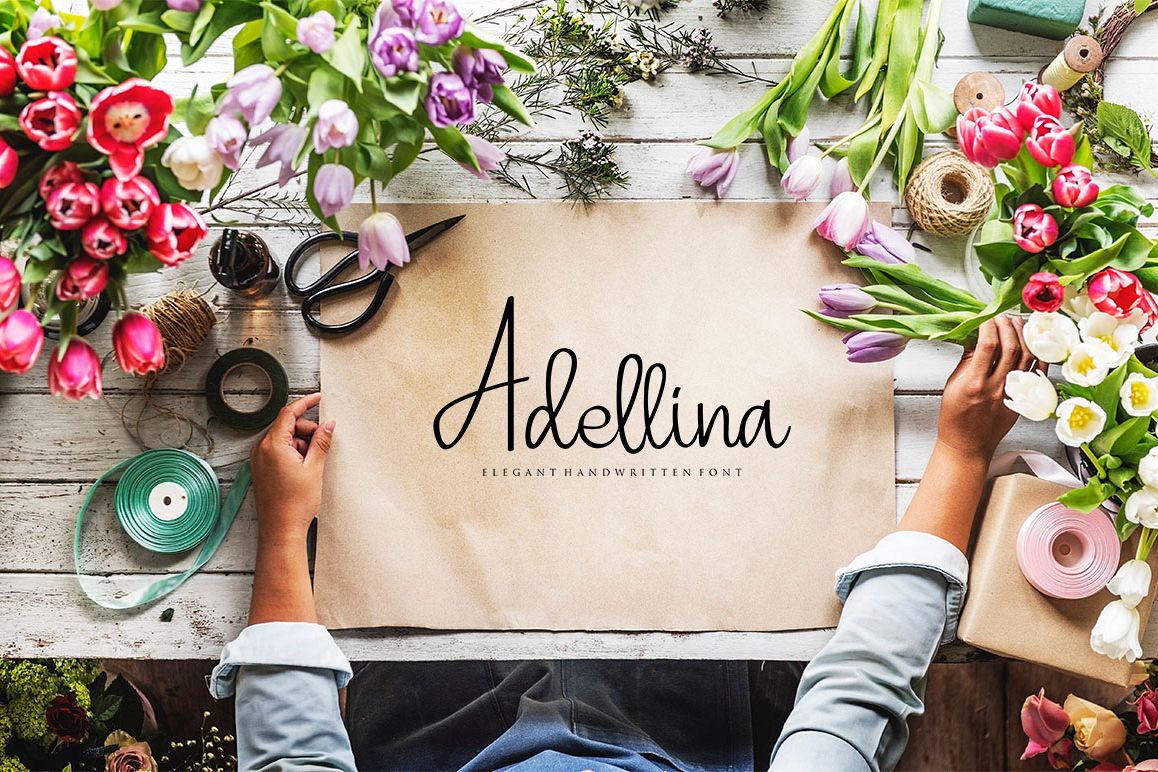
Adellina
Introduce our new product with the name Adellina
Adellina is a font designed for handwritten with an elegant impression.
Adellina can be applied to anything that you need, so it will perfect your
work.